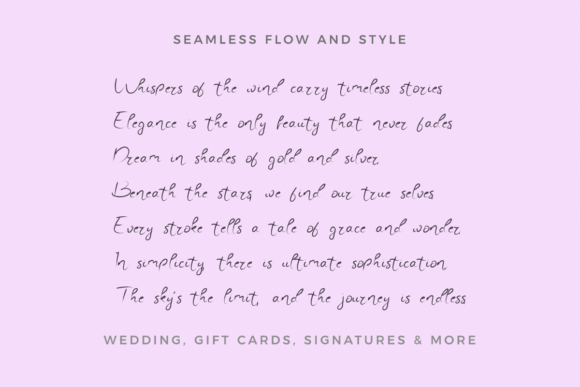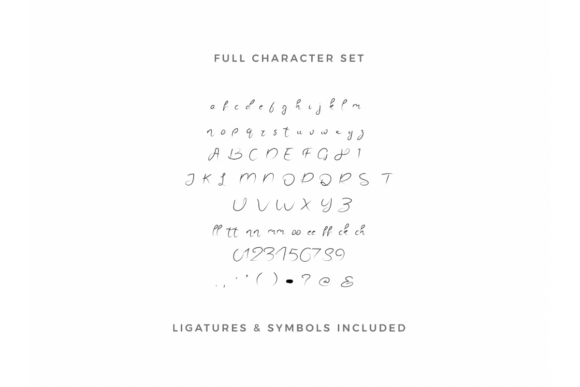
Introduction to Newfound Font
Have you ever stared at a blank page, trying to come up with the perfect font to match your creative vision? For designers, finding the right typography can be a daunting task, but what if I told you that there’s a font that can elevate your project into a work of art? Enter the Newfound Font, a game-changing script font that combines the charm of handwritten elegance with the sophistication of high-quality design.
As a designer, you know how valuable a unique and stylish font can be for your creative project. Whether you’re working on an invitation, a brand logo, or a social media campaign, the Newfound Font is sure to make a lasting impression. With its transparent background and high-quality design, this font is a design resource that will take your projects to the next level.
Newfound Font
- High-quality design resource featuring a unique and creative style perfect for various projects.
- Includes a comprehensive set of characters, including uppercase and lowercase letters, numbers, and punctuation.
Honest Review: Newfound Font
As a designer, I’m always on the lookout for high-quality design resources to elevate my creative projects. Recently, I had the opportunity to try out the Newfound Font, and I’m excited to share my thoughts.
- ✨ High-quality glyphs and smooth letterforms make it perfect for a wide range of design applications.
- ✨ The font’s clean and minimalist design makes it a great choice for modern creative projects.
- ✨ The transparent background option allows for seamless integration into various design elements.
- ⚠️ Limited font family options, which may not be ideal for designers who need a wider range of styles.
- ⚠️ Some users may find the font’s minimalist design too plain for certain creative projects.
Newfound Font
Tips for Getting the Most Out of Newfound Font
The Newfound Font is ideal for a variety of creative projects, including:
Pacifico Font is a beautiful, modern script font that’s perfect for creative projects requiring a clean and elegant look. It’s ideal for use in titles, headings, or body text where a sophisticated and refined feel is desired.